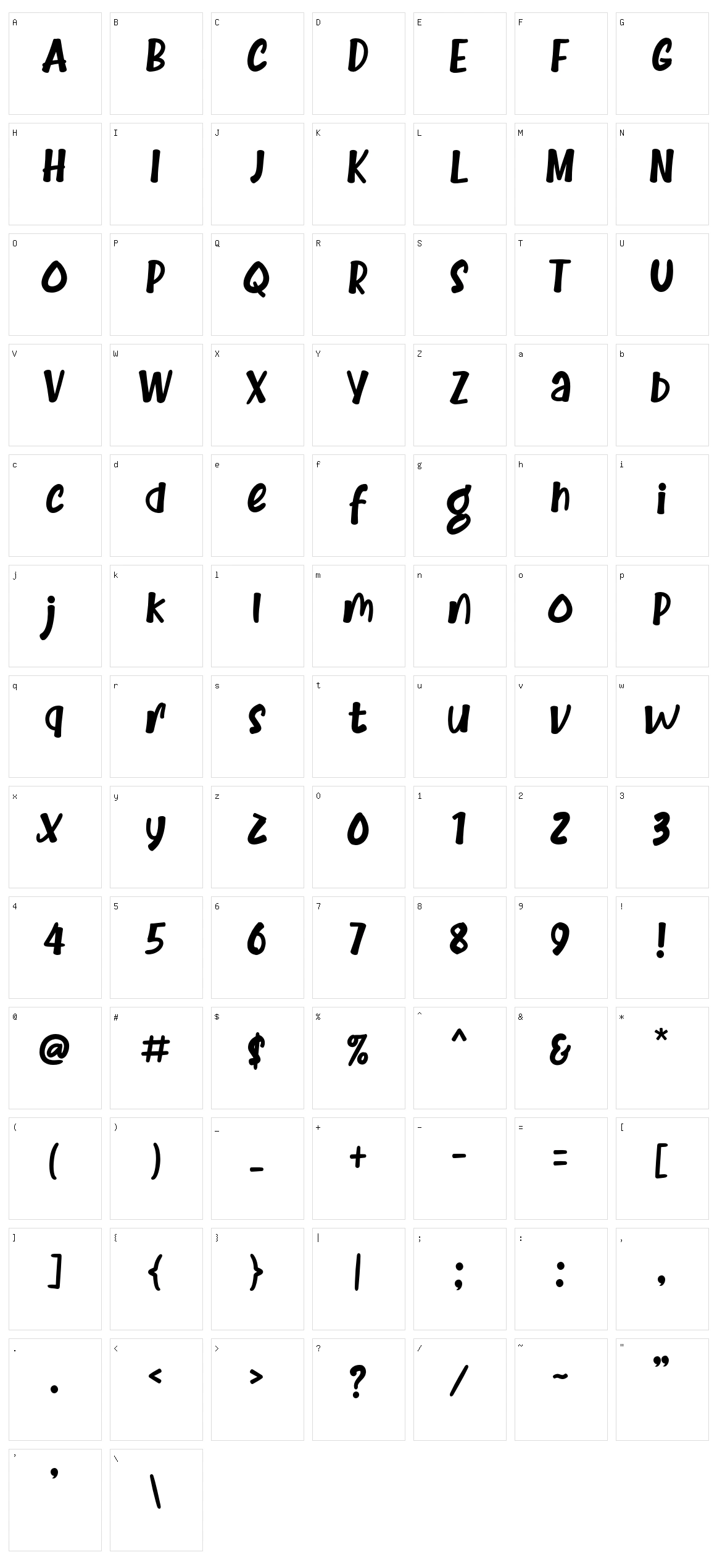
The free font Brandon Bromley is carefully designed by DumadiStyle, showcasing a thoughtful balance of creativity and usability and falls under the Cartoon font style. When you download the ZIP file, it contains only 167.6 KB of font files, making it lightweight and quick to download. Please review the license details below to understand permitted usage and distribution rights. If license information is not available, we recommend using this font for personal projects only or contacting the author directly for commercial usage permissions.